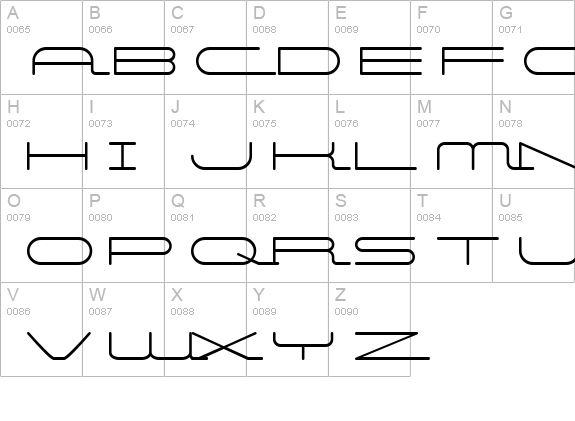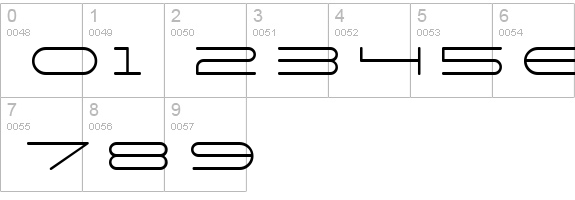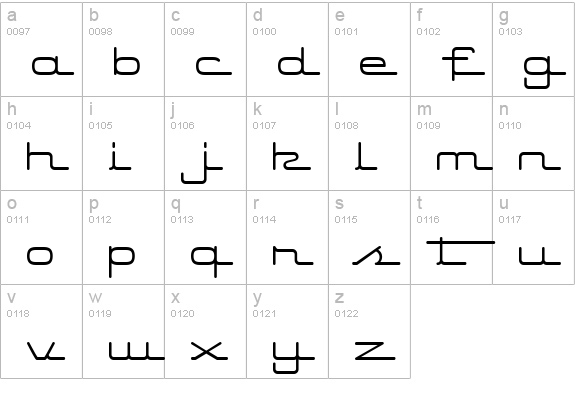
Starliner BTN Font Details
Starliner BTN is a stunning font that will take your designs to new heights. This font is the perfect blend of modernity and elegance, making it ideal for a wide range of projects. Whether you're designing a logo, creating a website, or working on a print project, Starliner BTN will give your work a sophisticated and professional look. With its clean lines and balanced proportions, Starliner BTN is a versatile font that can be used for both headlines and body text. Its unique letterforms are eye-catching and memorable, ensuring that your message will stand out from the crowd. One of the best things about Starliner BTN is that it is free! That's right, you can download this incredible font without spending a dime. Simply visit FontsMarket.com and start using Starliner BTN in your projects today. This font is freely available for personal and commercial use, so you can use it in any way you see fit. Whether you're a professional designer or a hobbyist, Starliner BTN is a font that you won't want to miss. Its timeless appeal and versatility make it a must-have in your font collection. Download Starliner BTN for free at FontsMarket.com and elevate your designs to the next level.